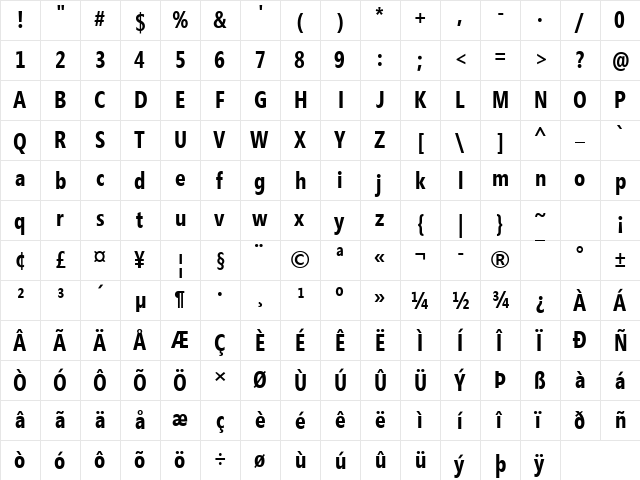
Segoe Condensed Bold
Design Context for Segoe Condensed Typeface
Segoe Condensed takes a measured approach to typography — its balanced proportions and neutral character make it a reliable workhorse for both digital and print work. The heavy weight commands attention and anchors typographic hierarchies. Its narrow stance lets it pack a punch even in space-constrained designs.